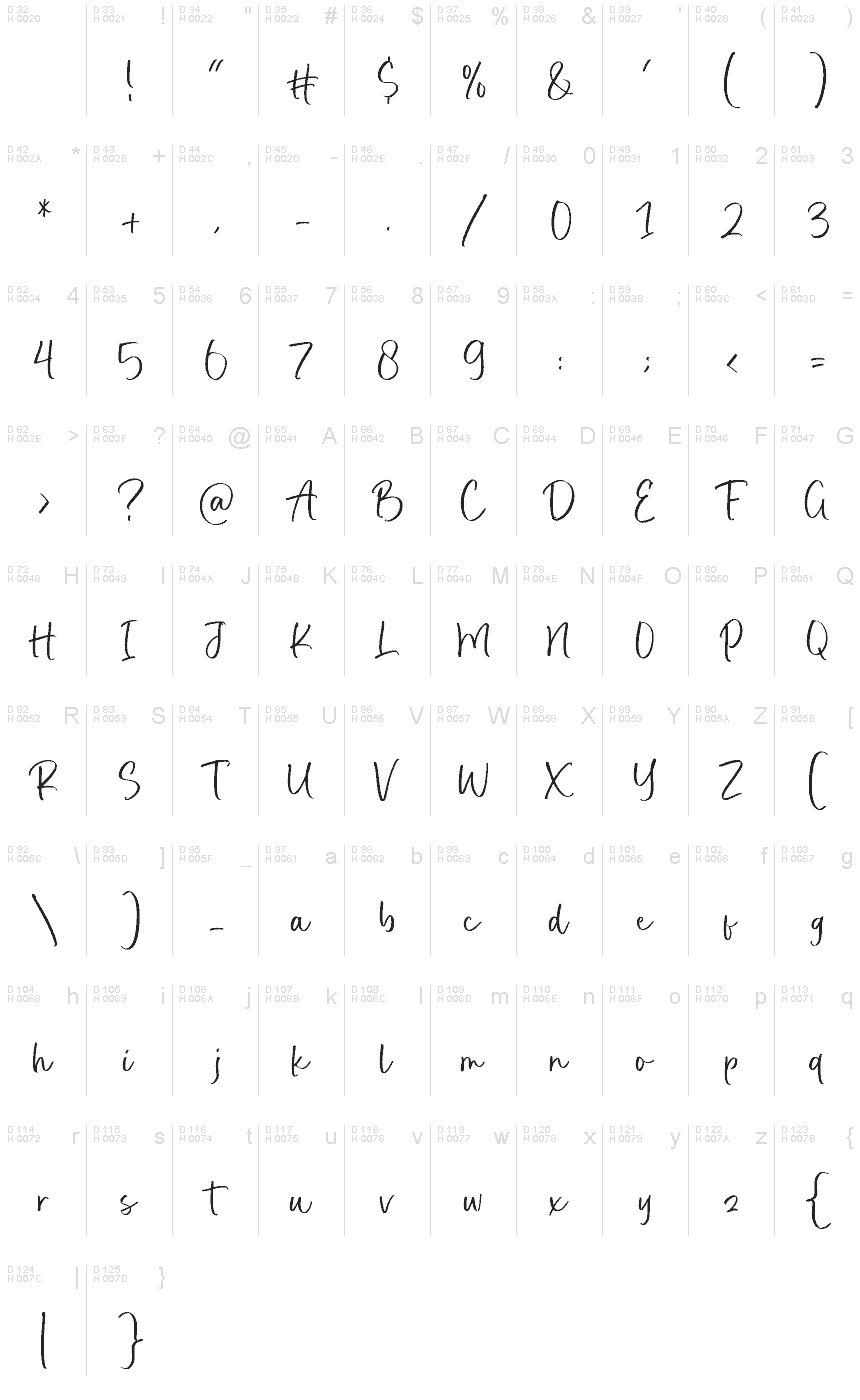
Realistic Feather
Realistic Feather font designed by Balpirick Studio is an elegant handwritten font with elegant, flowing, signature-like characters. Each glyph brings a modern aesthetic with a delicate handcrafted feel and a personal touch. Enjoy the dashing typography created for any of your current or upcoming projects.